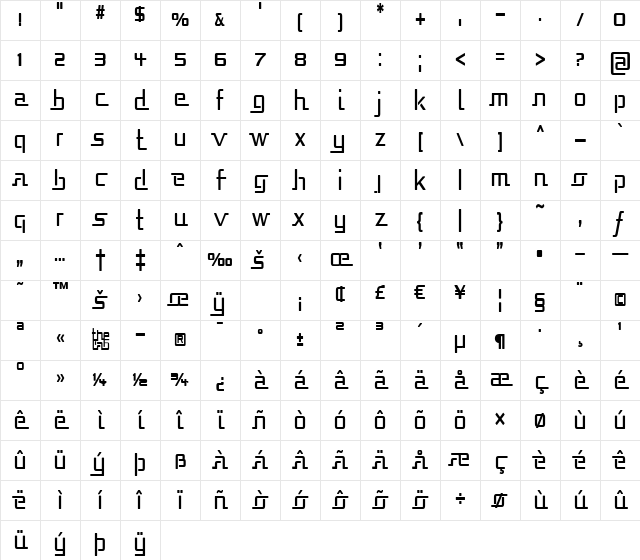
Republika Cnd Regular Free Font
Republika Cnd Regular
Designer: Apostrophe
Design Context for Republika Cnd
Republika Cnd is a composed and adaptable typeface that performs quietly and consistently across a wide range of design contexts.